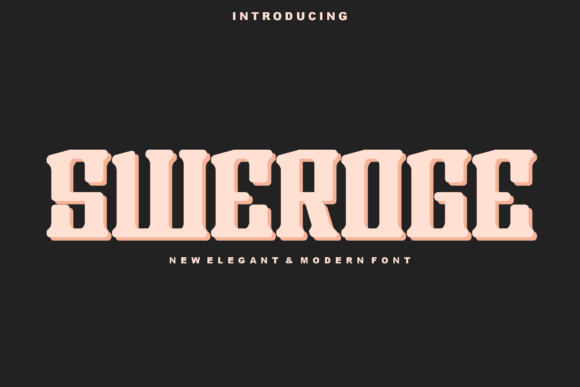
Introducing Sweroge Font: Unleash the Power of Bold and Stylish Typography!
In the realm of visual communication, fonts play a pivotal role in capturing attention, conveying messages, and evoking emotions. Amidst a sea of ordinary fonts, Sweroge Font emerges as a beacon of creativity, inviting you to embark on a journey of bold and stylish typography.
Sweroge Font belongs to the distinguished family of display fonts, renowned for their captivating presence and ability to command attention. It's meticulously crafted to make a lasting impression, whether you're designing striking T-shirts, eye-catching posters, or captivating social media graphics.
Step into the world of Sweroge Font and discover a treasure trove of creative possibilities. With its bold strokes, dynamic curves, and captivating serifs, this font exudes a sense of confidence and charisma that will make your designs shine. Imagine your words leaping off the page, demanding attention, and leaving an indelible mark on your audience.
But Sweroge Font is more than just a pretty face. It's meticulously designed to provide unmatched versatility and adaptability. Its bold and stylish character seamlessly blends with a wide array of design aesthetics, from vintage retro to modern minimalist. Unleash your creativity and let Sweroge Font elevate your designs to new heights of sophistication.
Join the growing community of designers, artists, and creative professionals who have embraced Sweroge Font as their go-to choice for bold and impactful typography. With Sweroge Font, you'll unlock the power to transform ordinary designs into captivating masterpieces that leave a lasting impression.